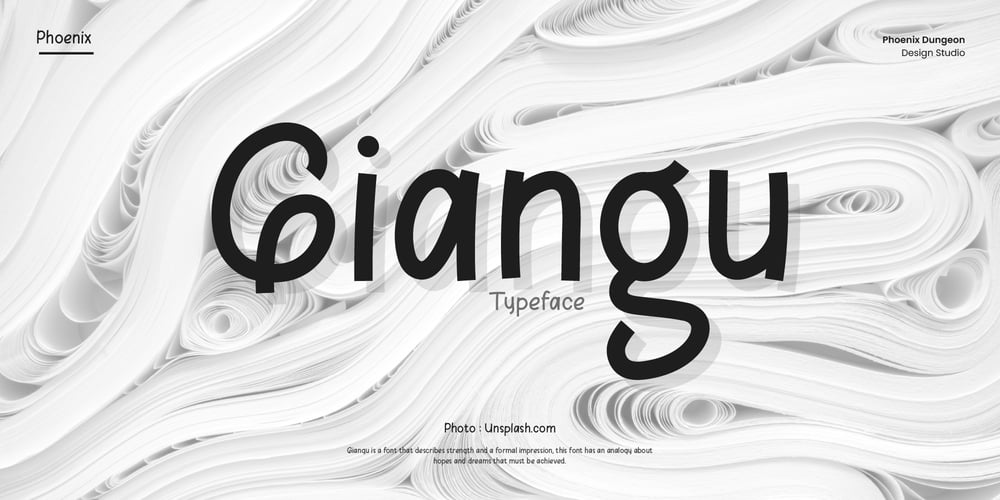
Giangu Font Family was designed by Alif Naufal Muzakki and published by Phoenix Group. Giangu contains 2 styles and family package options. Giangu is a typeface that describes strength and a formal impression, this typeface has an analogy about hopes and dreams that must be achieved.